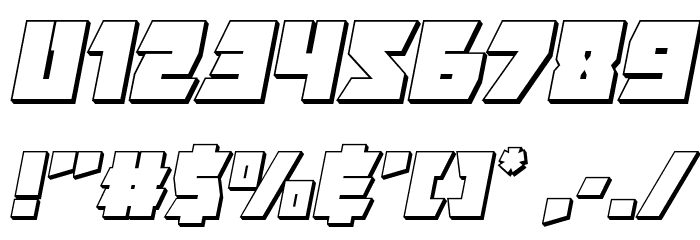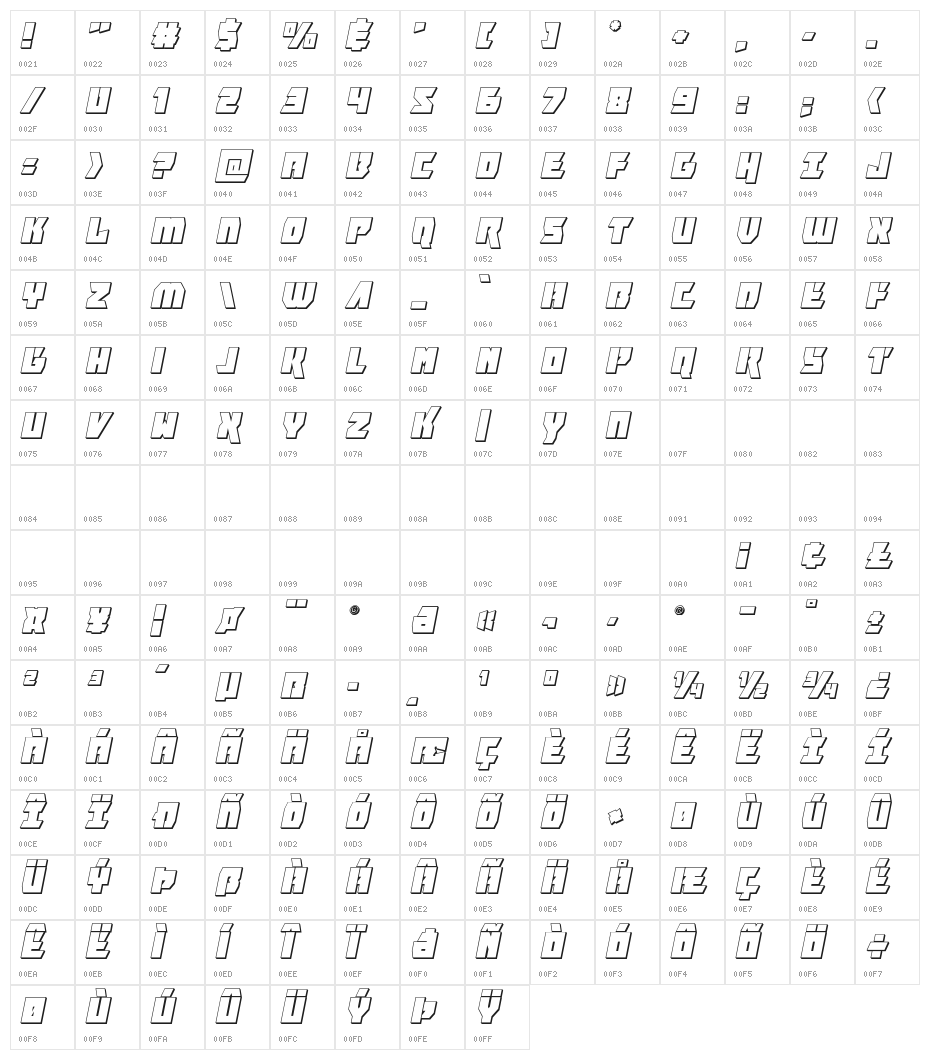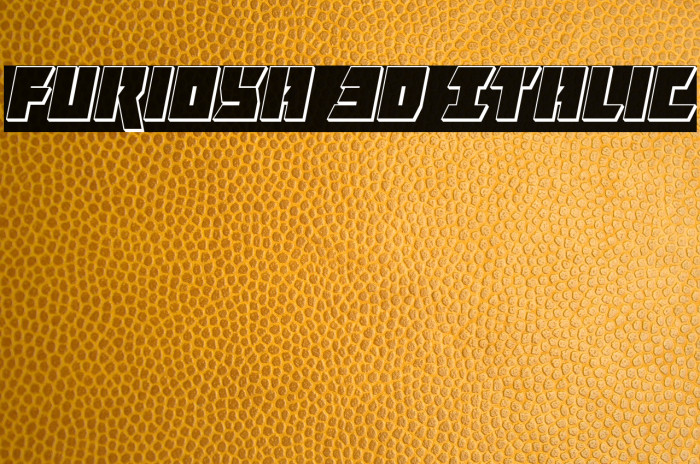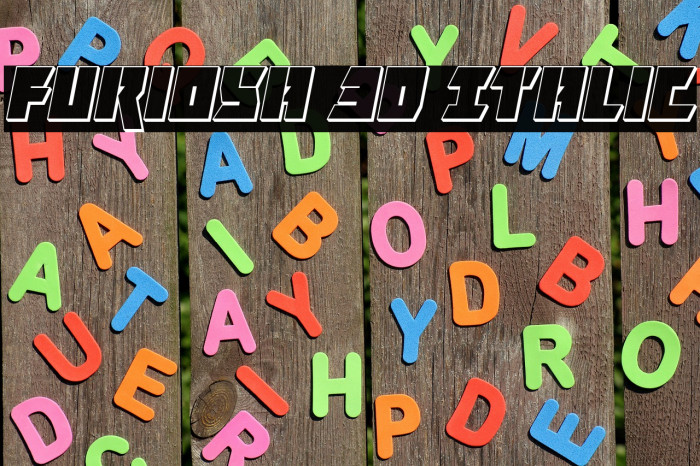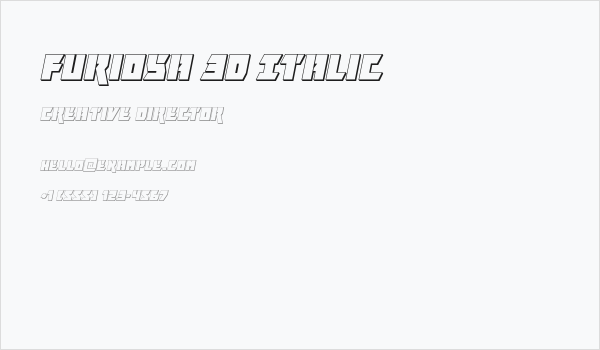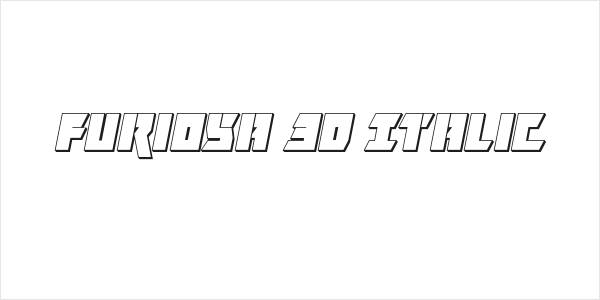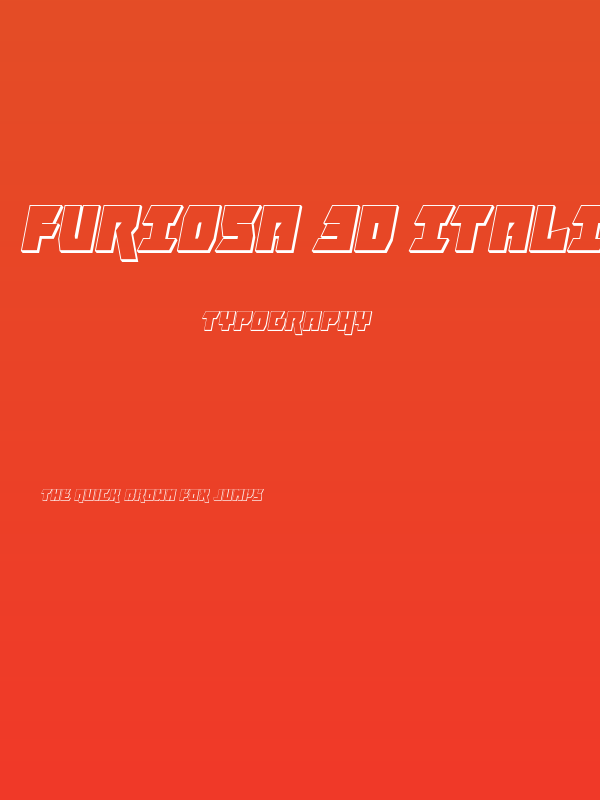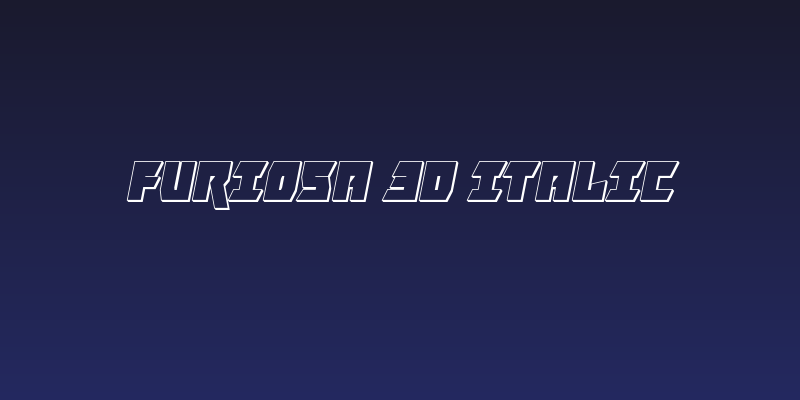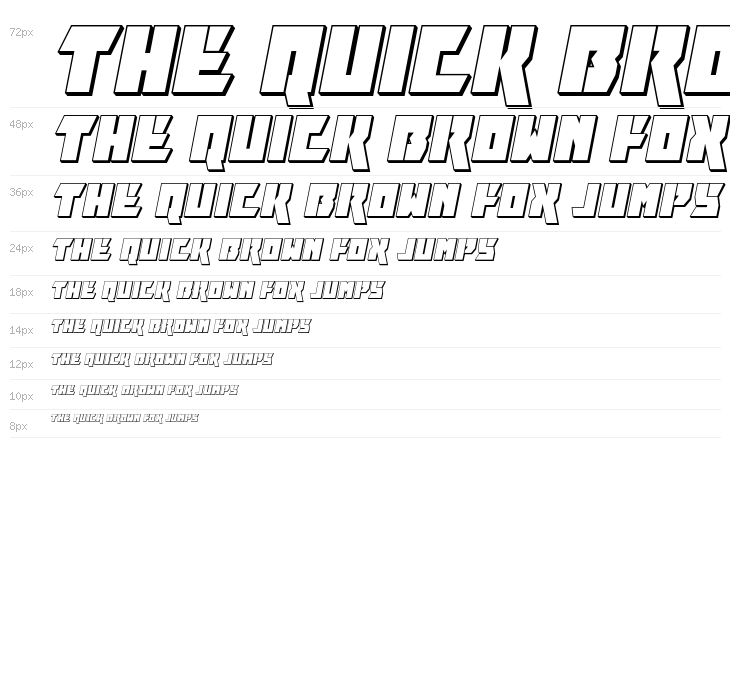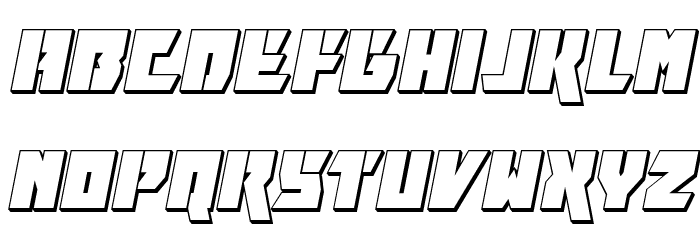
Furiosa 3D Italic Font
Furiosa 3D Italic Description
This font features a bold, three-dimensional style with a strong italic slant, giving it a dynamic and futuristic appearance. The characters are blocky and angular, with a distinct outline that enhances the 3D effect. The uppercase and lowercase letters maintain a consistent style, with sharp edges and a sense of movement. Numbers and special characters are designed to match the bold, impactful look of the alphabet. The font's unique style makes it stand out, suitable for projects that require a modern and edgy aesthetic.